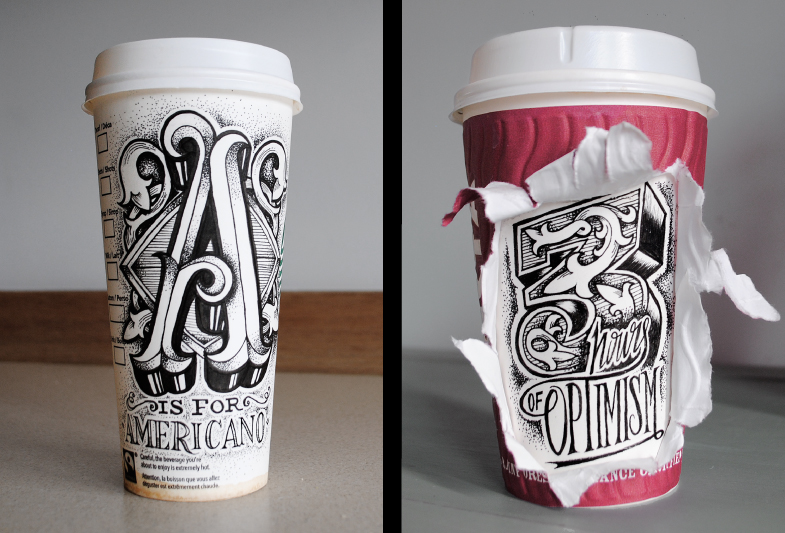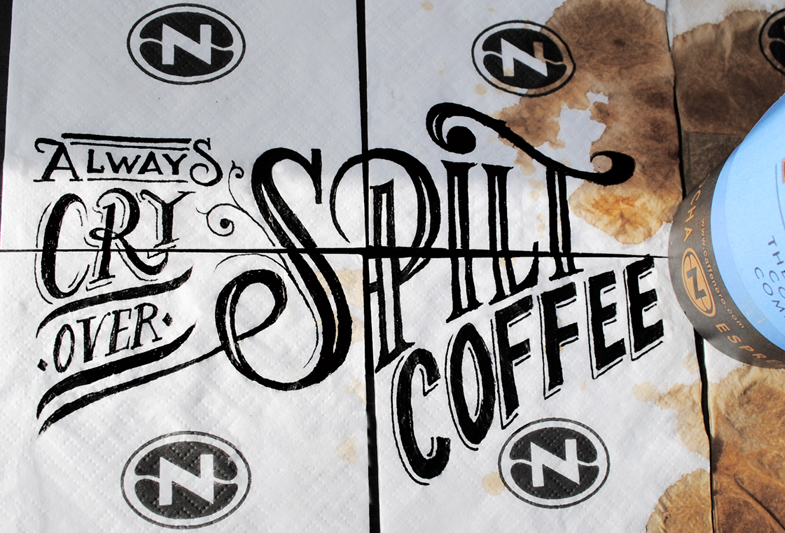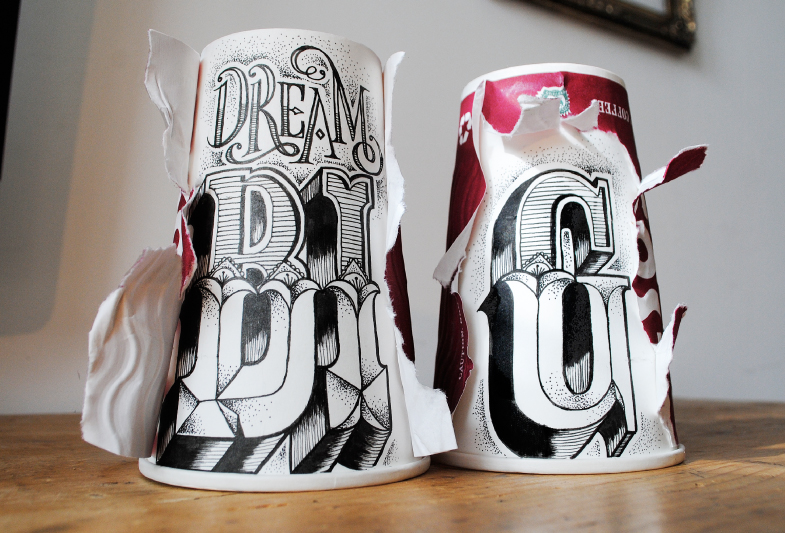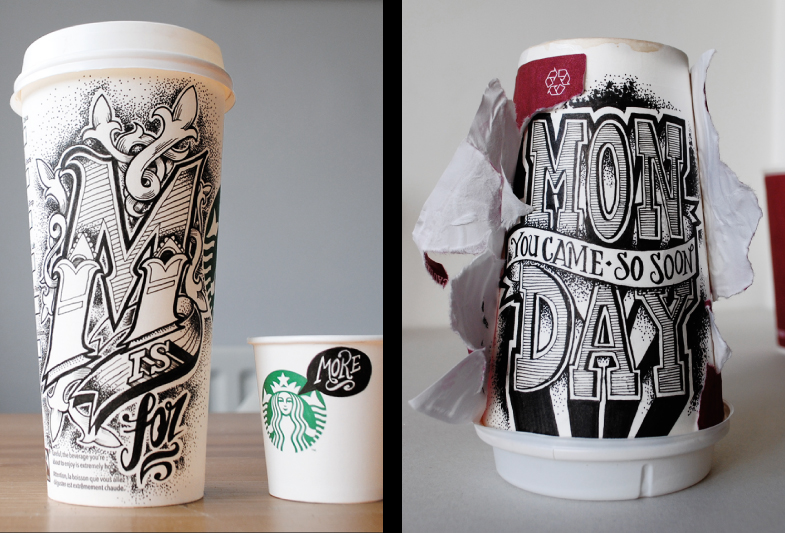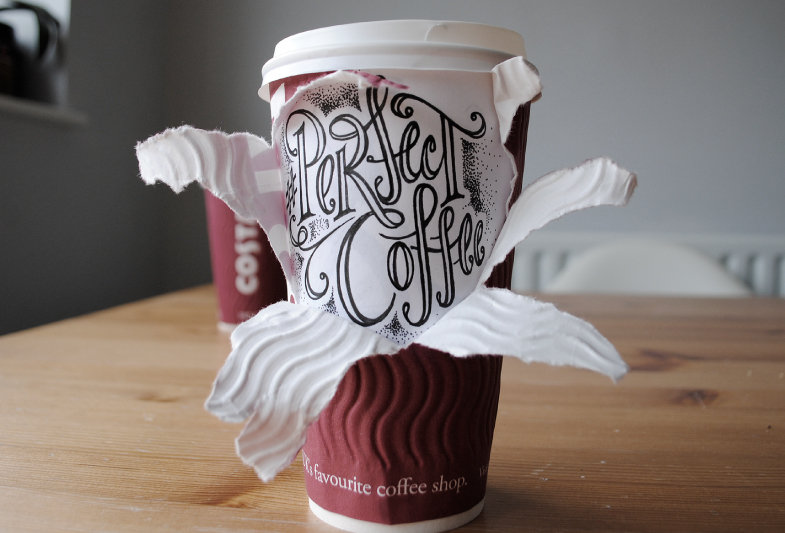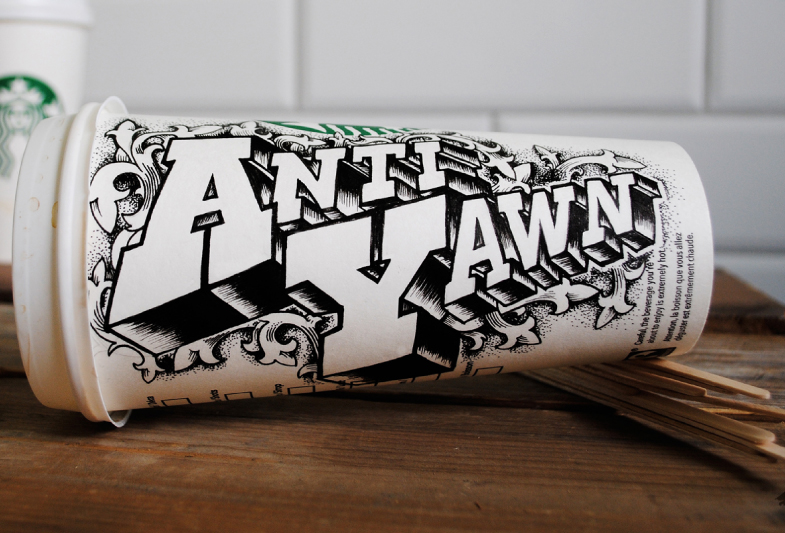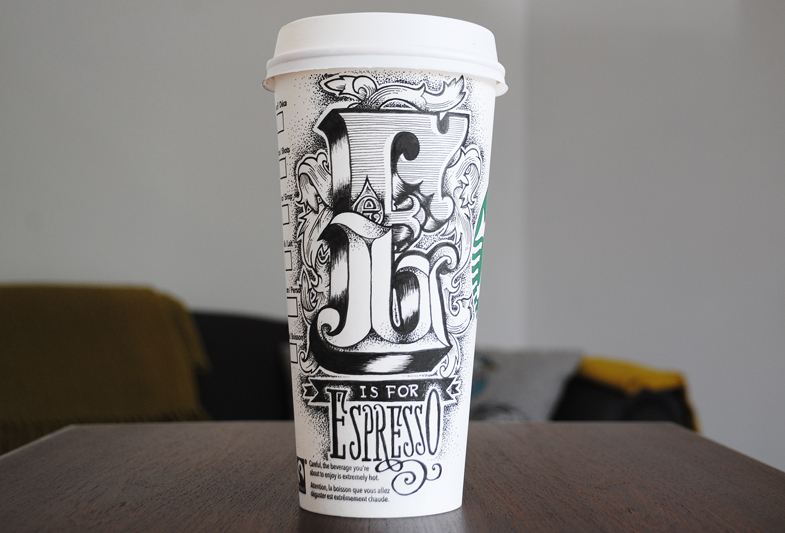
If you love both coffee and letters, check this out
Can you think of something more amusing than practicing your typographic skills on coffee paper cups? First drink the coffee and then give the cup to Mr. Rob Draper for some kick-ass type art. This project is an ongoing case-study on everyday objects, especially cups, that adds value to the fact that handwritten type is among the hypest things on 2014 design lists. We love coffee and we love type so we urge you to take a glimpse of these serious skills.